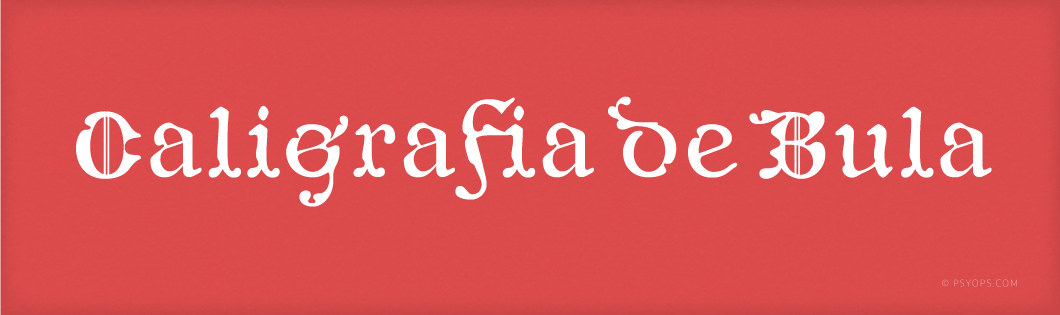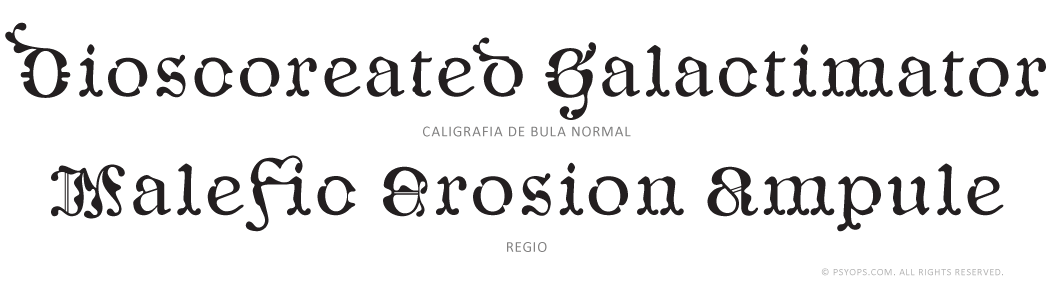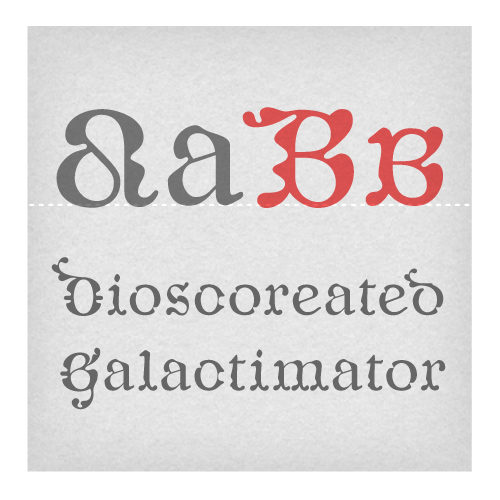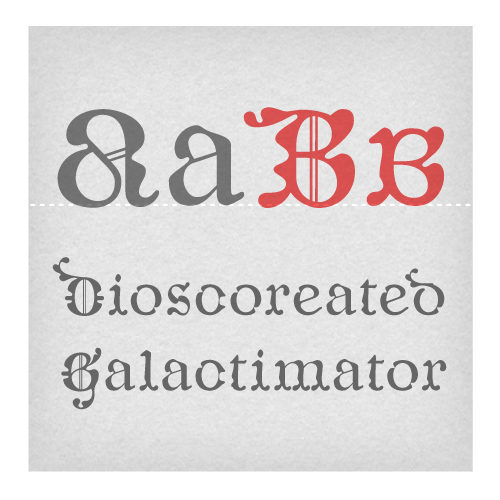
Caligrafía deBula is a reinterpretation of a florid lettering style by famed royal calligrapher Manuel de Andrade de Figueiredo [Portugal, 1670–1735]. It consists of a Normal style, and the more ornate Regio.